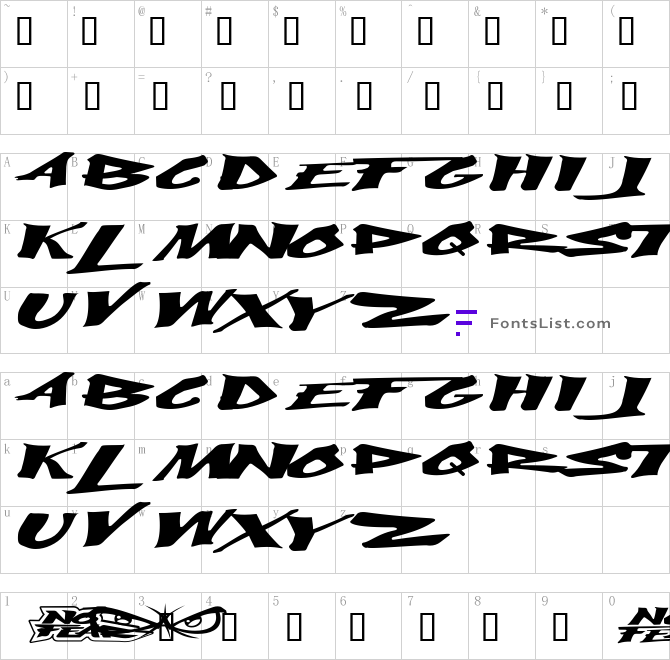
- Font Name:ABFNoFear
ABFNoFear.ttf is a very beautiful artistic font, ABFNoFear.ttf is widely used in the design and printing of various books and pictures,ABFNoFear.ttf has a strong visual impact,ABFNoFear.ttf is a commonly used font in newspapers, magazines and books, and is used in posters, e-commerce Poster design, store design, logo design, font design and other fields.ABFNoFear.